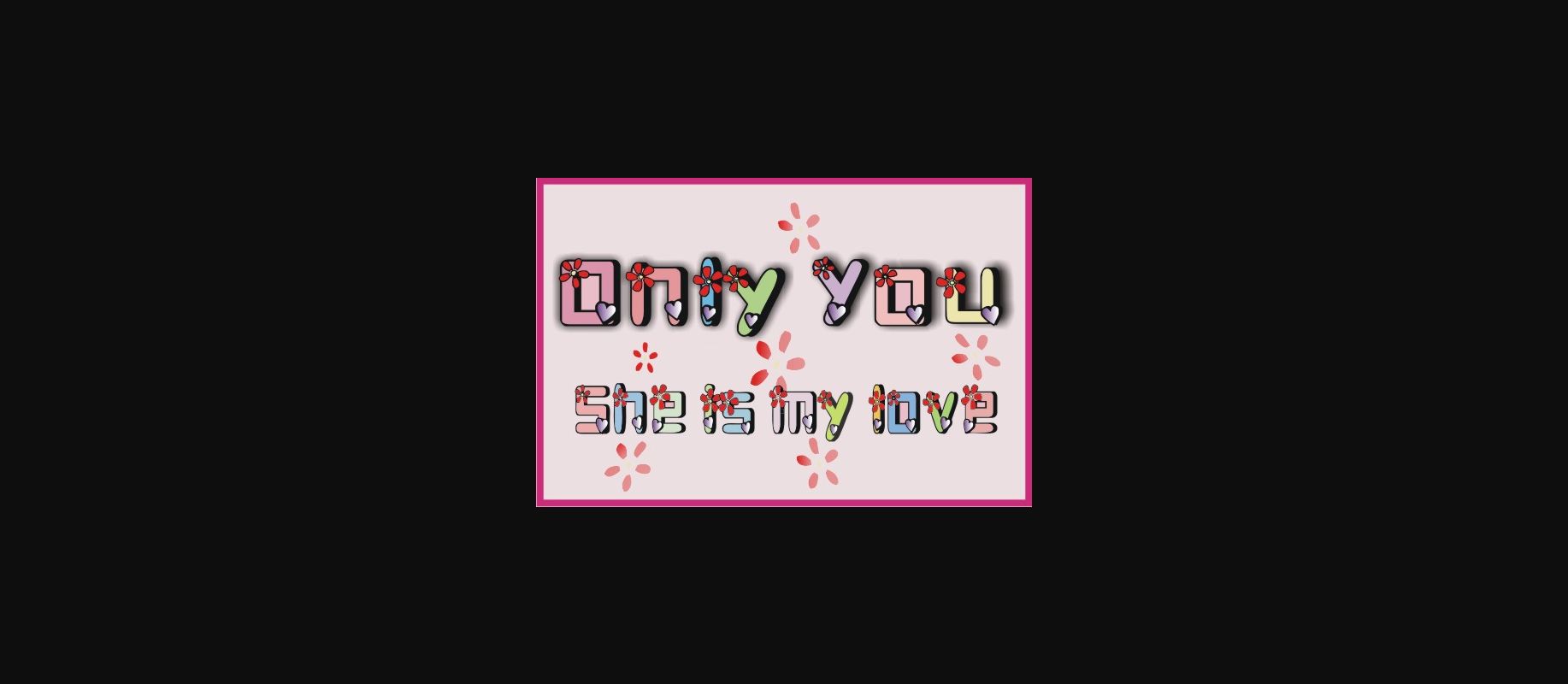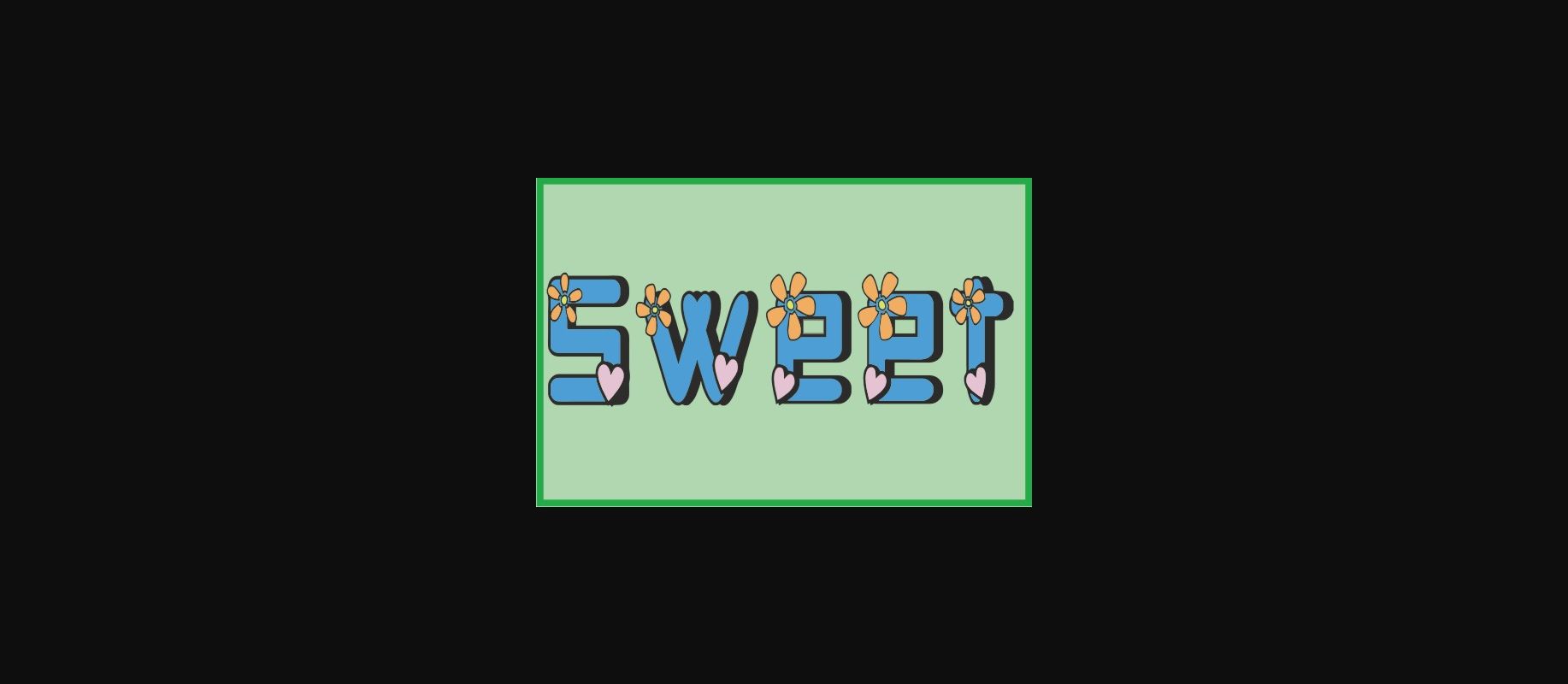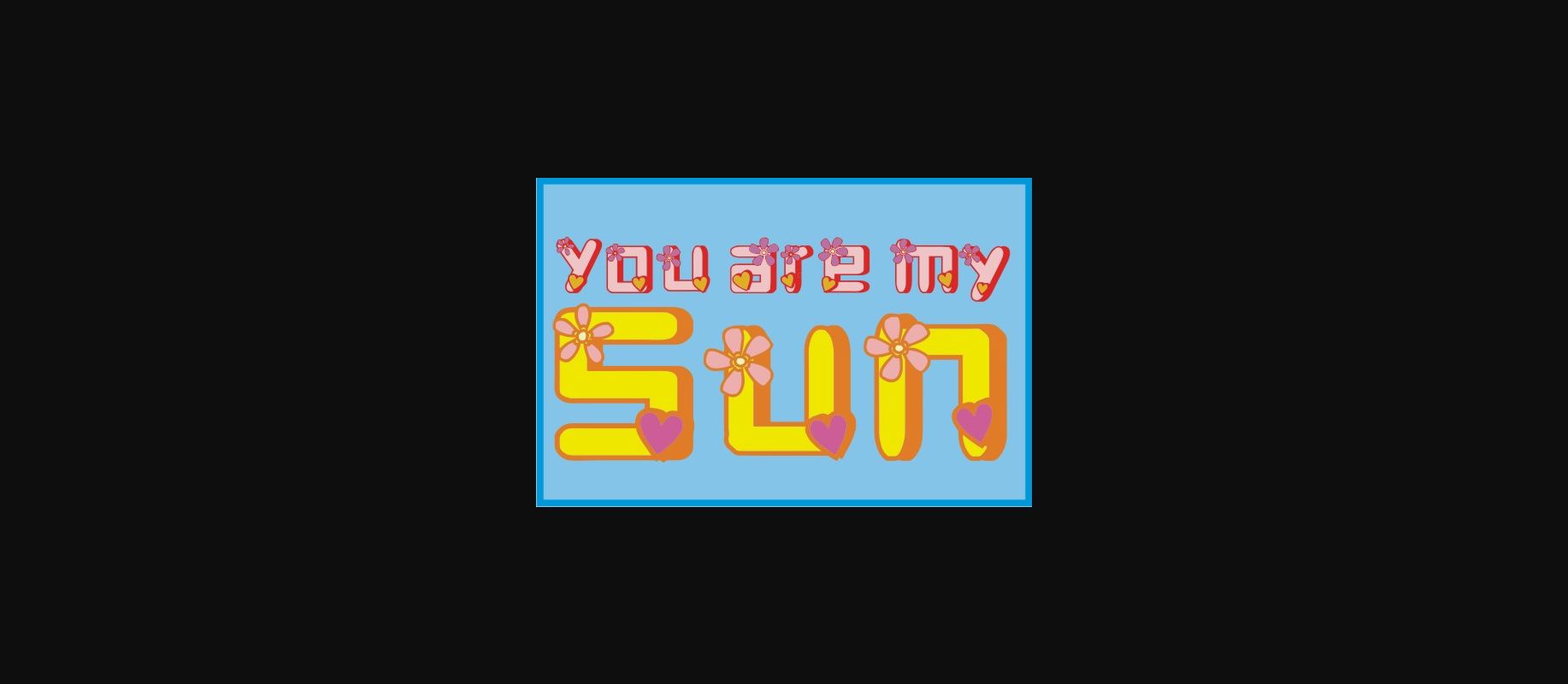
Only You Font
About Only You Font
Only You is a sweet decorative font, featuring lovely flower ornaments. Fall in love with its authentic feel and use it to create gorgeous wedding invitations, beautiful stationary art, eye-catching social media posts, and cute greeting cards.